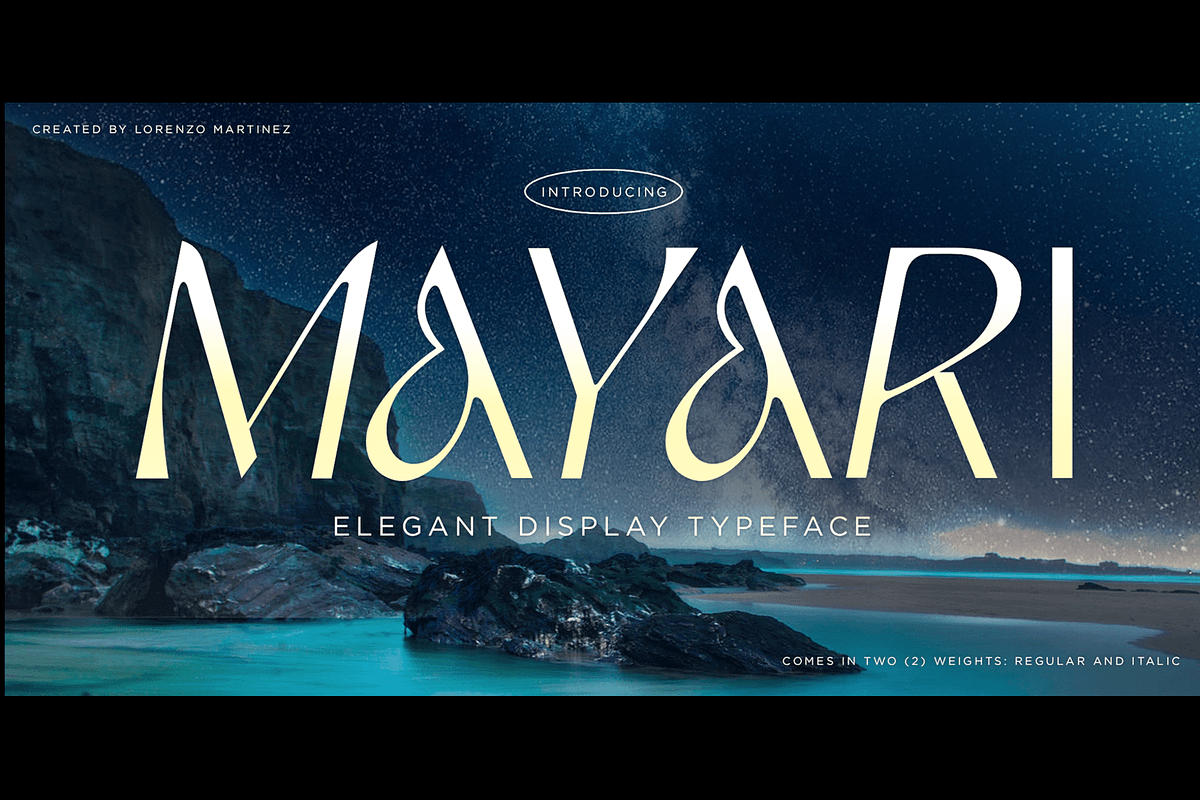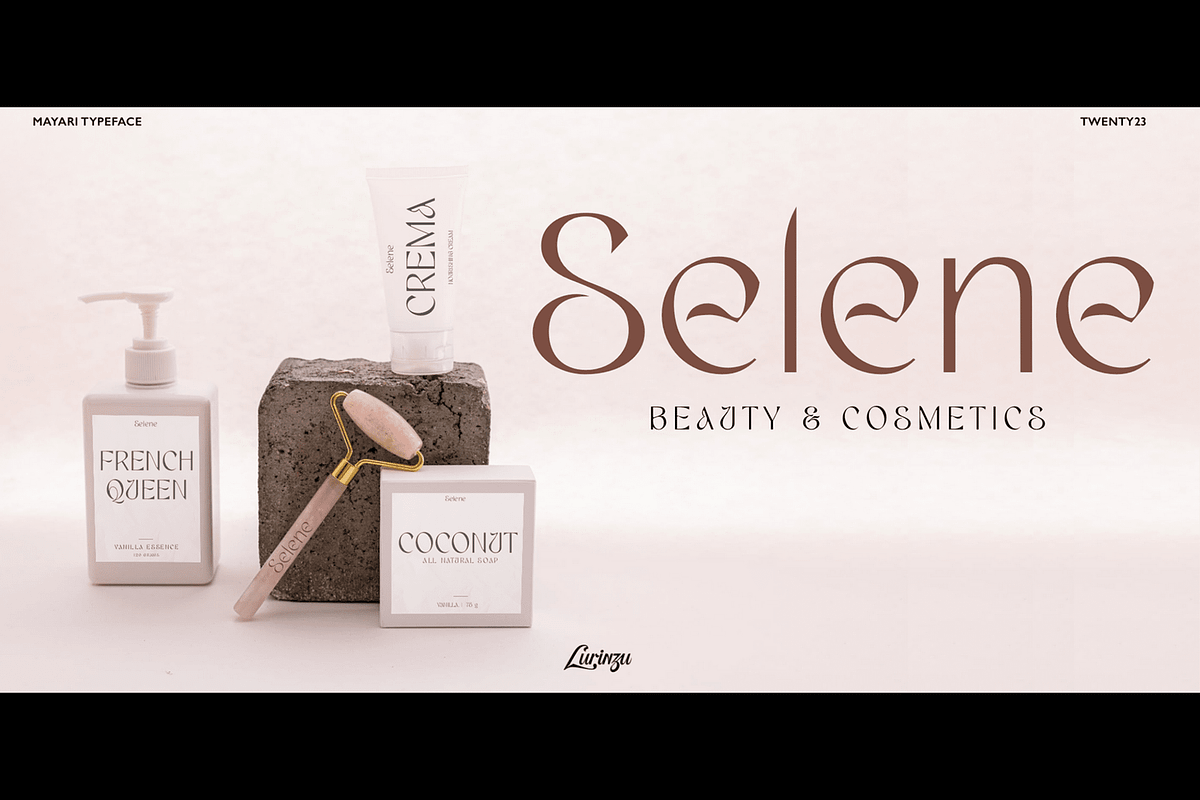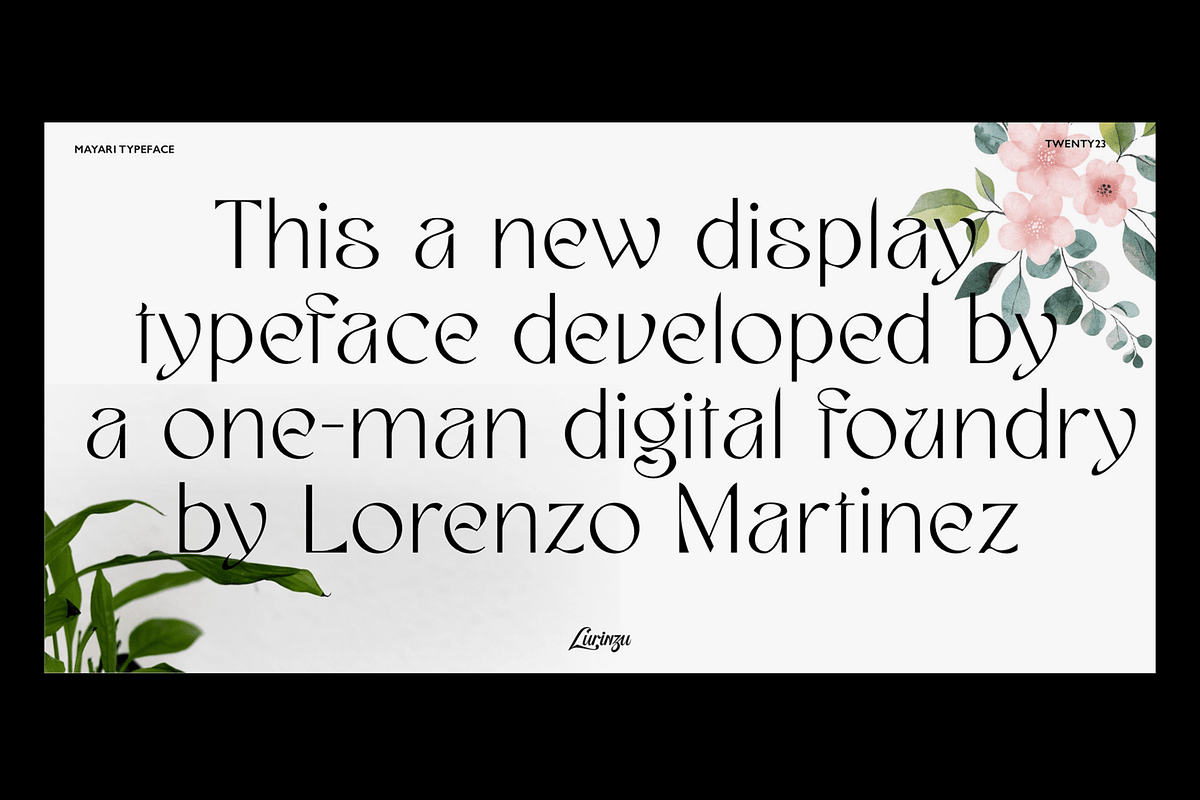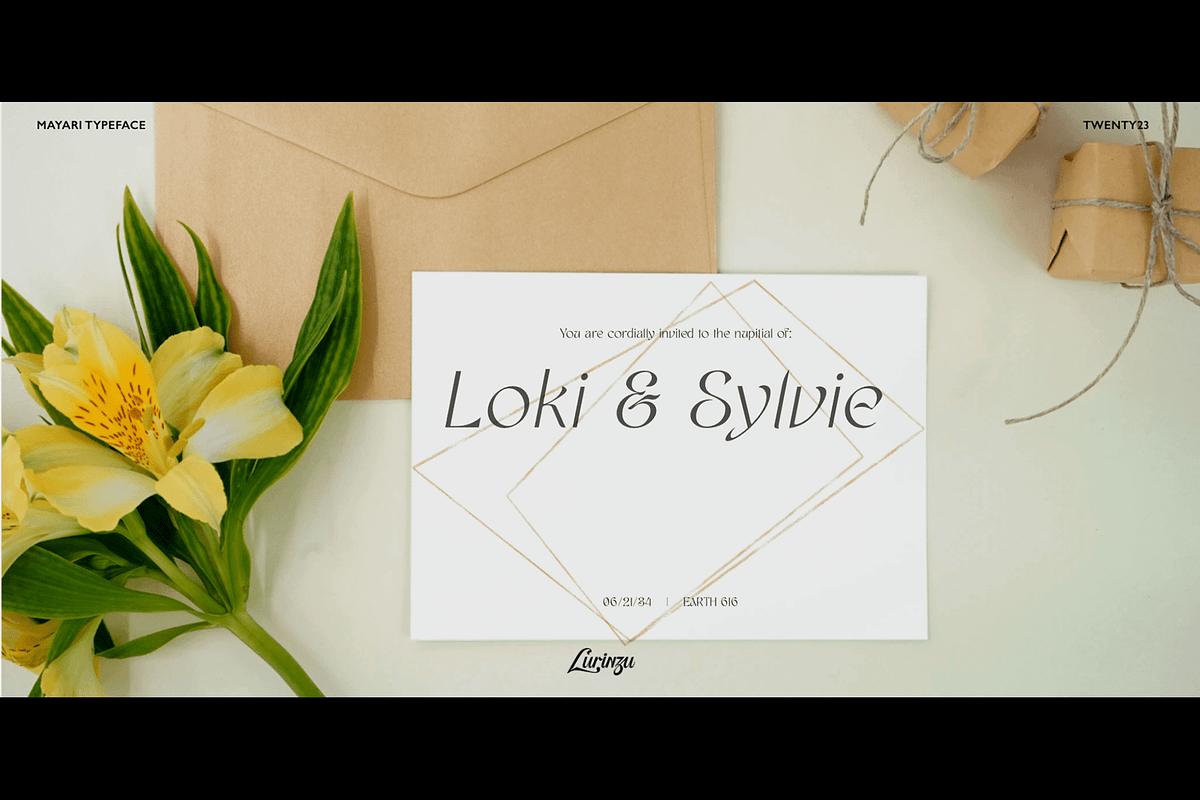
Mayari - Expressive elegant Typeface
“Mayari" is an elegant and expressive display typeface inspired by the characteristic and vibes of female warrior in Filipino Mythology named: Mayari. Mayari is the “goddess of the moon”.
This typeface holds the perfect balance of expressiveness as a display whilst also holds well of being a body type.